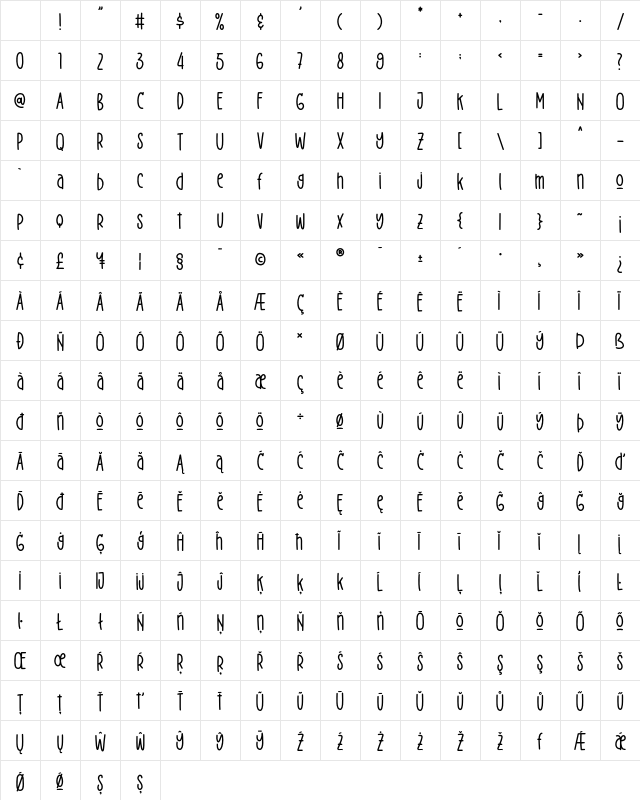
Delight Love is a composed and adaptable typeface that performs quietly and consistently across a wide range of design contexts. Its slender proportions lend an understated elegance to any composition.